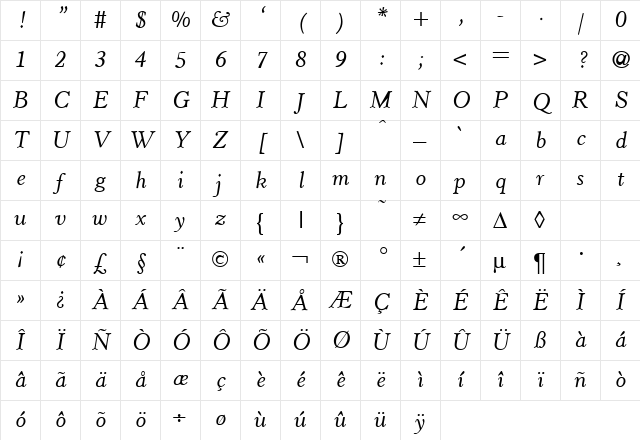
HopperOldStyle RegularItalic
Style: RegularItalic
Design Context for HopperOldStyle
HopperOldStyle carries the refined structure of traditional serif typography, with bracketed terminals and considered proportions that communicate credibility and craft. The slanted form adds forward momentum and visual energy.